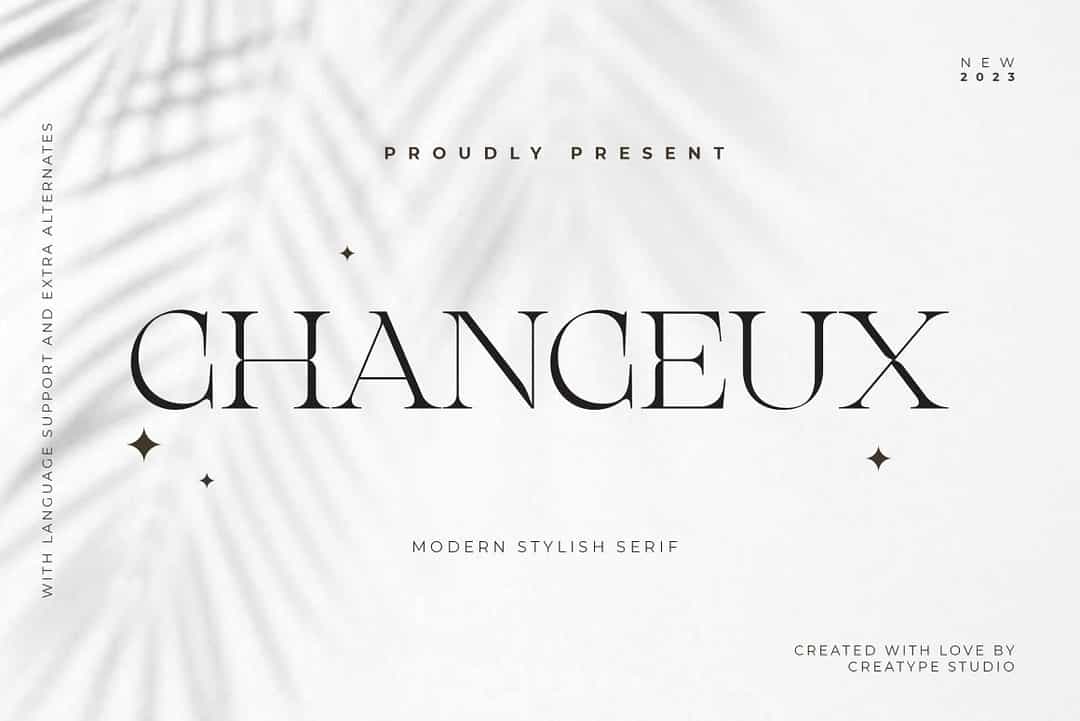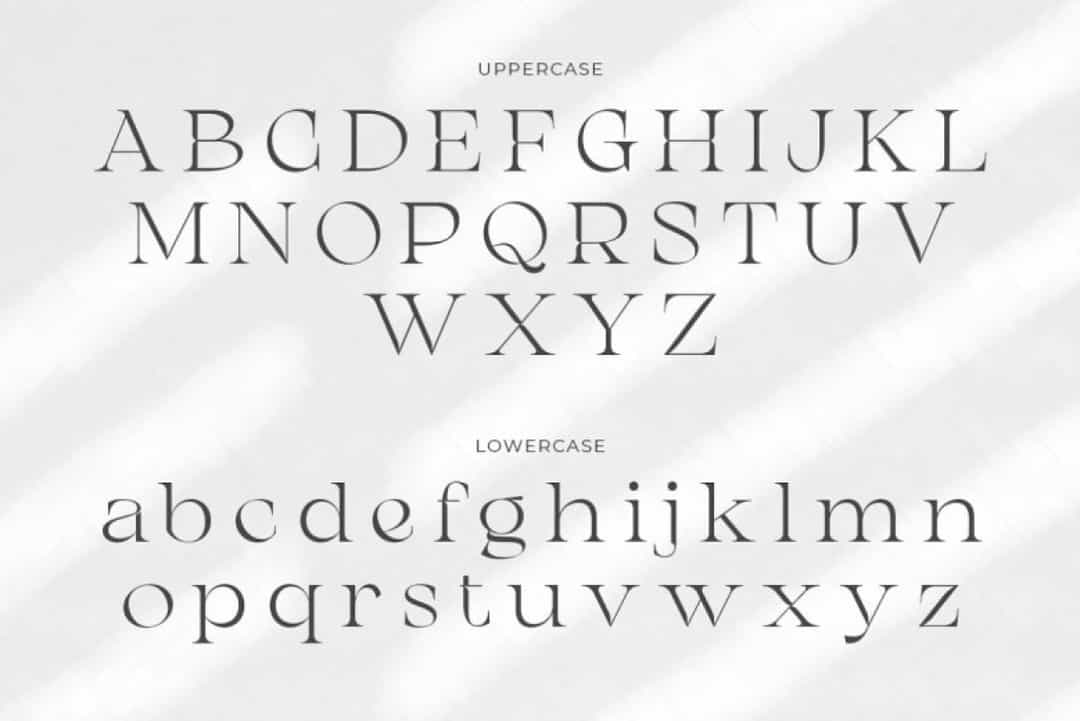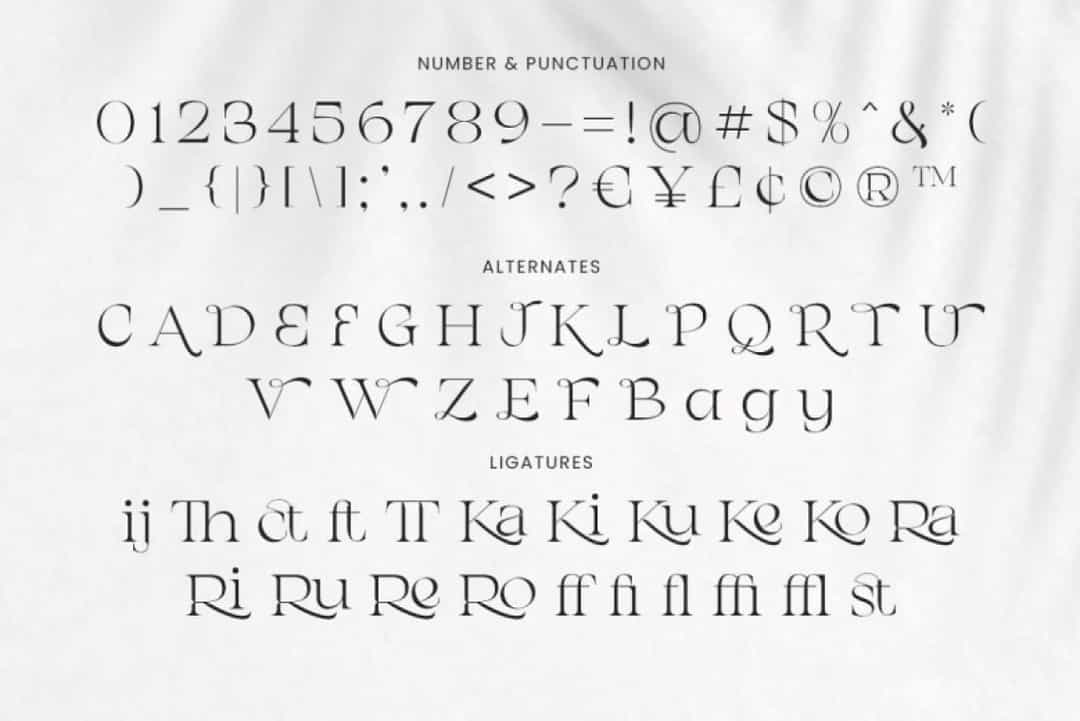
Chanceux, an elegant and contemporary serif typeface, adds sophistication and class to any design project with its refined style. Perfect for logos, branding wedding designs and ads, social media posts packaging product designs labels photo watermark invitations stationery etc.